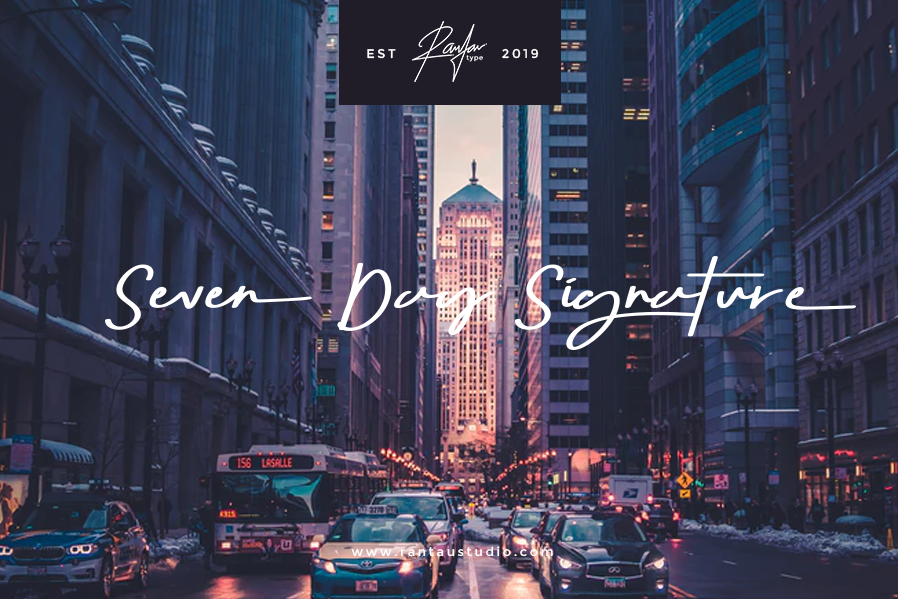
Seven Day Signature
SevenDay Signature or you can say SDS is is a simple and classy font and we keep this font looks elegant, classy, readable, stylish, catchy and easy to use.  The SDS is the great choice for watermark on photography, signature or signature logo design, quotes, album cover, business card, and many other design project.  The SDS is here to make your work to high level!!!
• Alternate
• Swashes